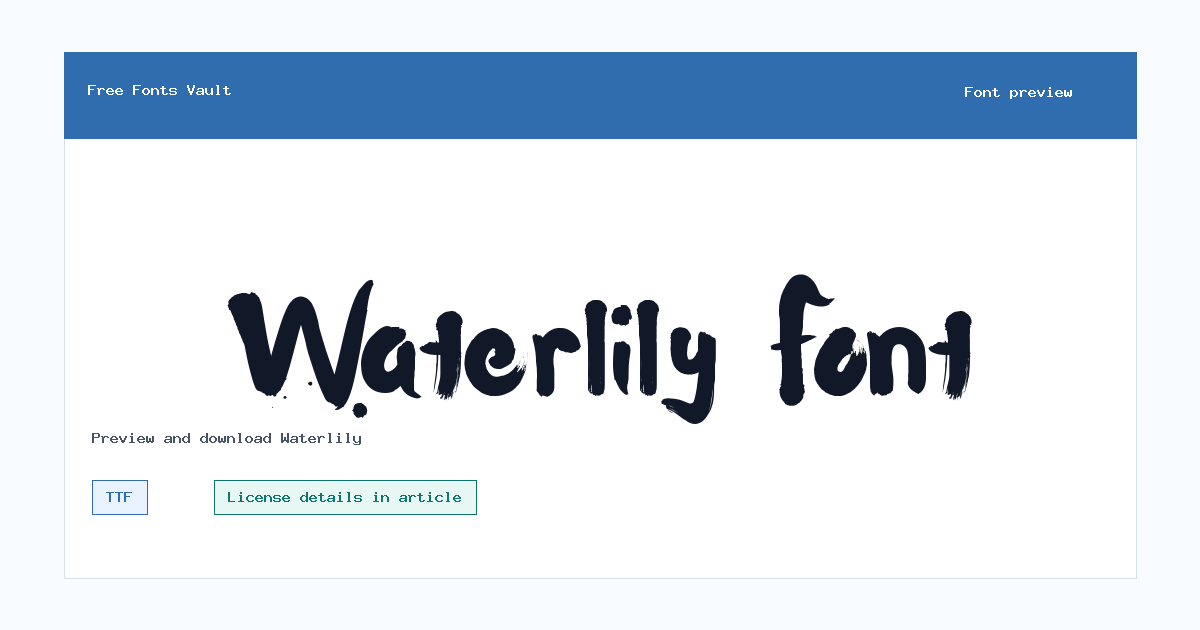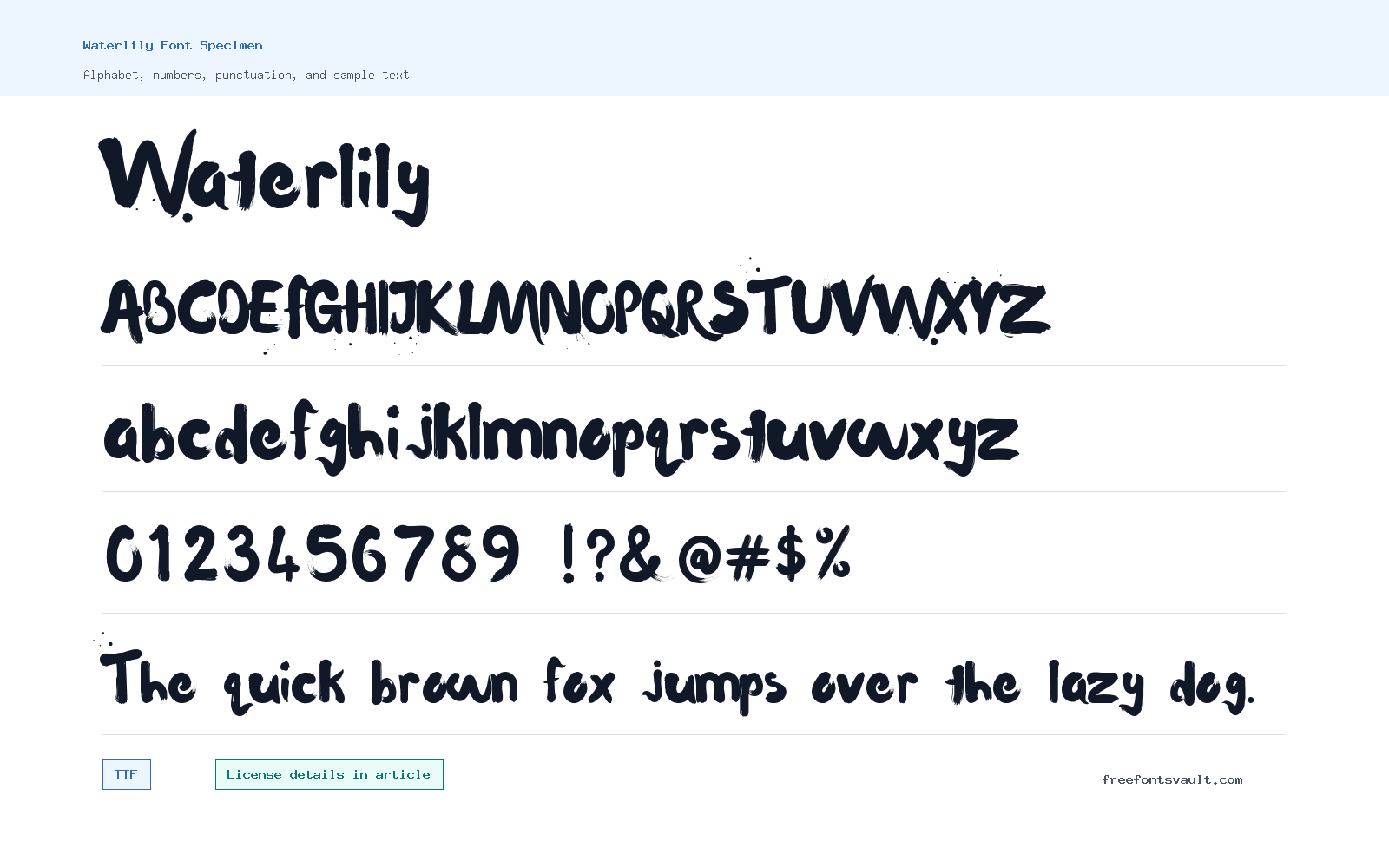
Waterlily
- Designer MaroonBaboon
- Foundry Maroon Baboon
Waterlily font.
Waterlily is a script-style TTF font credited to MaroonBaboon. It is built for short decorative wording, so it fits names, invitations, quote graphics, labels, and gentle display titles better than long paragraphs.
About Waterlily Font
Waterlily is listed as a regular-weight script font from MaroonBaboon, with Maroon Baboon also shown as the foundry. Its script direction makes the live preview important because letter pairs, capital letters, and spacing can change the feel of a word quickly.
Use Waterlily for short samples where a softer handwritten or decorative mood helps the design. Try it for invitation headings, greeting cards, personal logos, quote images, social media headers, short labels, and blog graphics. Keep the text brief and give the strokes enough room to breathe.
Avoid forcing Waterlily into dense paragraphs, tiny navigation text, or long all-caps lines. If you need supporting copy, pair it with a plain serif or sans serif. That lets Waterlily create the personality while the companion font carries the readable information.
- Script-style presentation suited to short decorative wording
- Useful for testing display text, names, titles, and quote layouts
- Best paired with a simpler companion font for longer supporting copy
- Best reviewed with real names and short phrases instead of placeholder text
- Invitation headings and wedding-style text
- Greeting cards and personal stationery
- Quote graphics and social media headers
- Personal logos, name marks, and labels
- Short decorative titles for blogs or lifestyle designs
- Soft branding mockups where a script accent is enough
Preview the exact words you plan to use, especially names and capital letters. Script fonts can look very different depending on the first and last letters. Check spacing, readability at small sizes, punctuation, and contrast before downloading. For a more natural result, test both a decorative heading and a practical supporting line. If the script feels too busy, reduce the amount of text rather than shrinking the font too far.
What type of font is Waterlily?
Waterlily is presented as a script-style font. It is better for decorative short text than for long paragraphs.
Who designed Waterlily?
Waterlily is credited to MaroonBaboon, with Maroon Baboon listed as the foundry.
Preview your own text, especially names and capital letters. Check spacing, readability at small sizes, and how the script strokes connect.